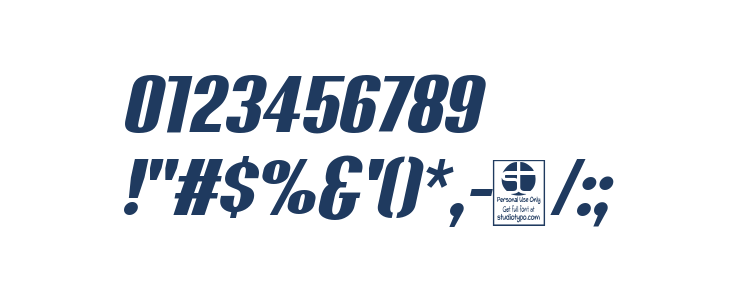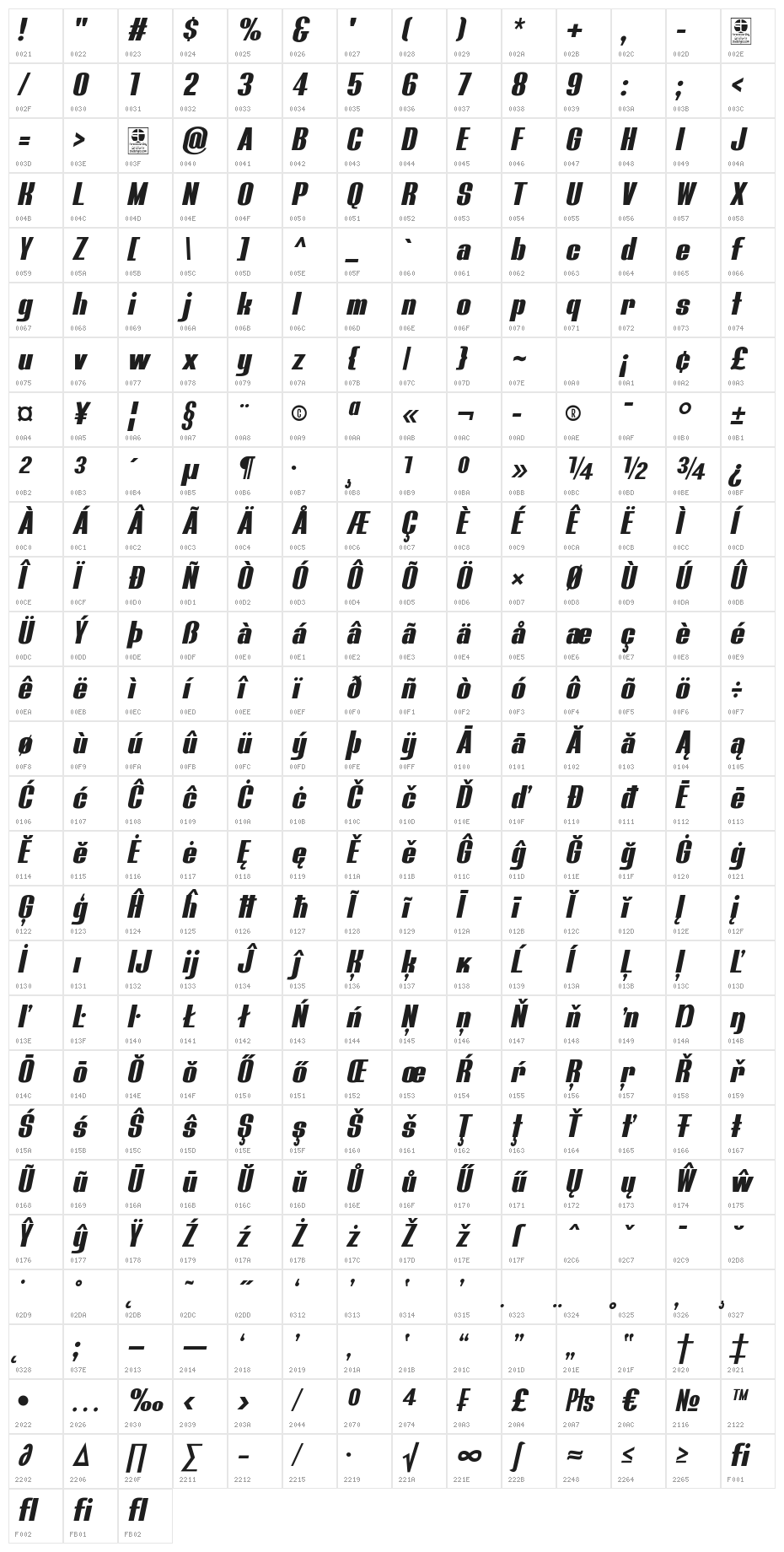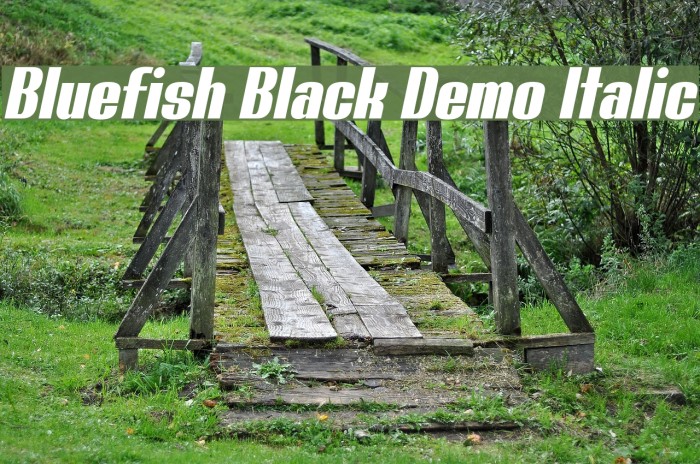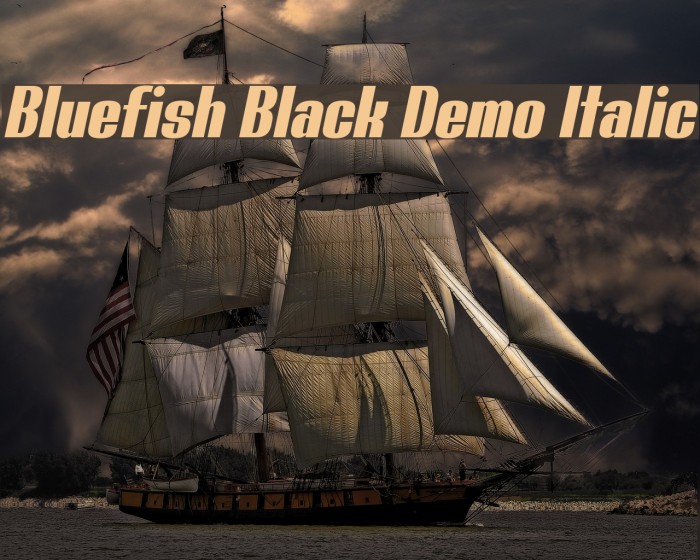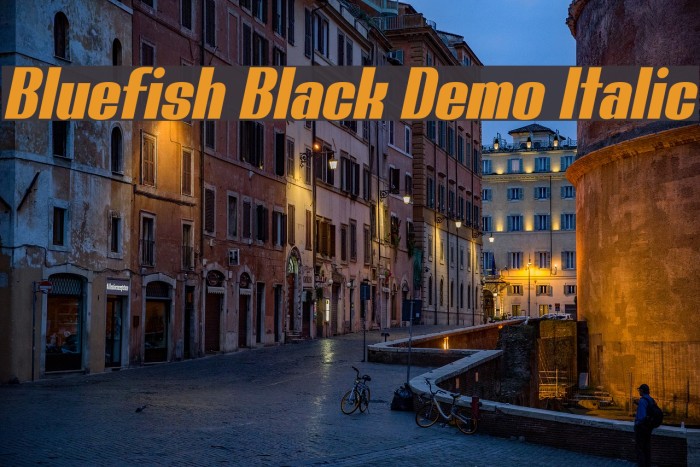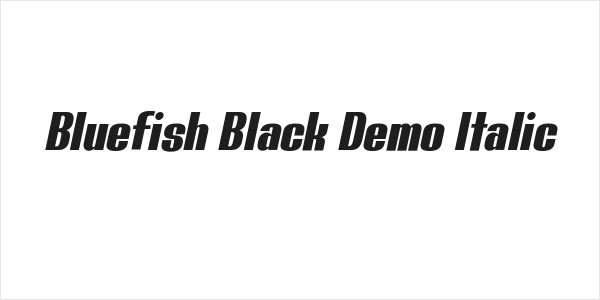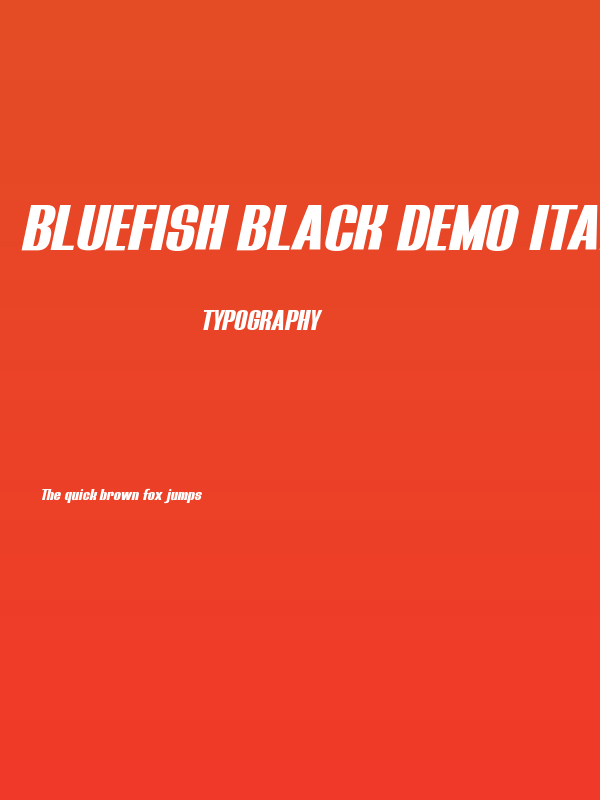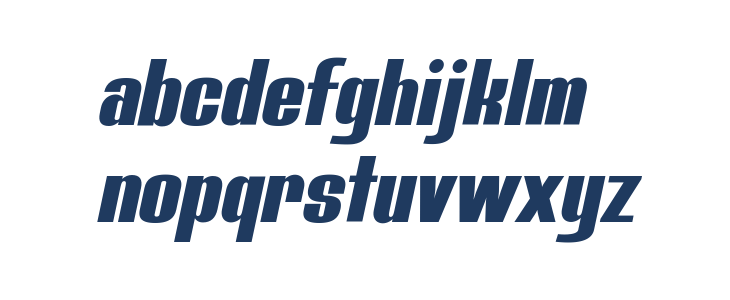
Bluefish Black Demo Italic Font
Bluefish Black Demo Italic Description
This font exhibits a bold and dynamic style with a strong italic slant, giving it a sense of movement and urgency. The characters are thick and robust, making them highly legible even at smaller sizes. The uppercase and lowercase letters maintain a consistent weight, while the numbers and special characters integrate seamlessly into the overall design. The font's boldness is complemented by its slightly condensed width, which allows for efficient use of space without sacrificing readability. The high contrast between the thick and thin strokes adds to its striking appearance, making it suitable for attention-grabbing headlines and impactful designs.
| Proposed Projects | Ideal for branding, advertising, posters, and any project requiring a bold, impactful typeface. |